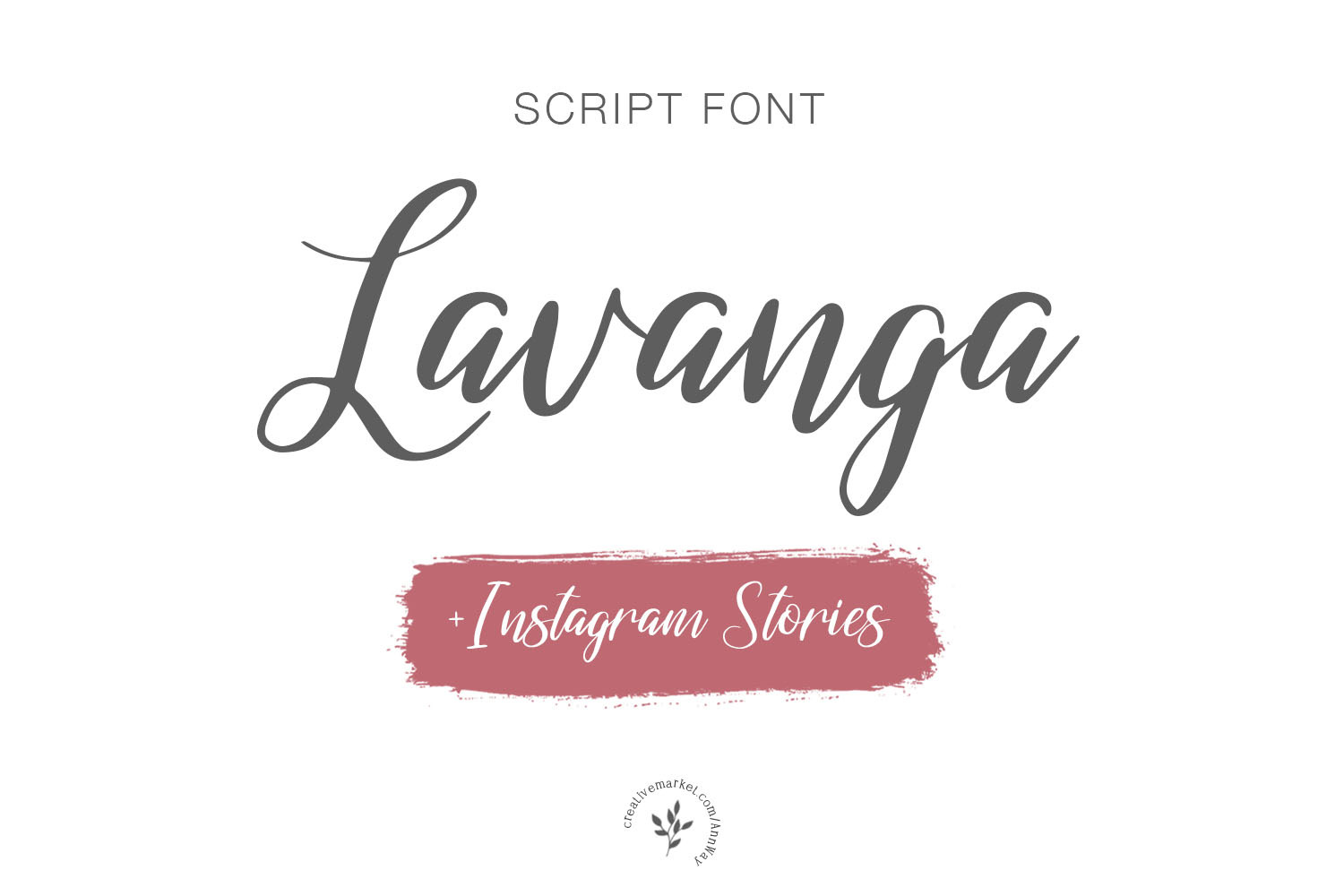
Lavanga | Font + Instagram Stories
This "Lavanga Font" is well suited for various design projects, such as logos, advertising, quotes, packaging design and others.